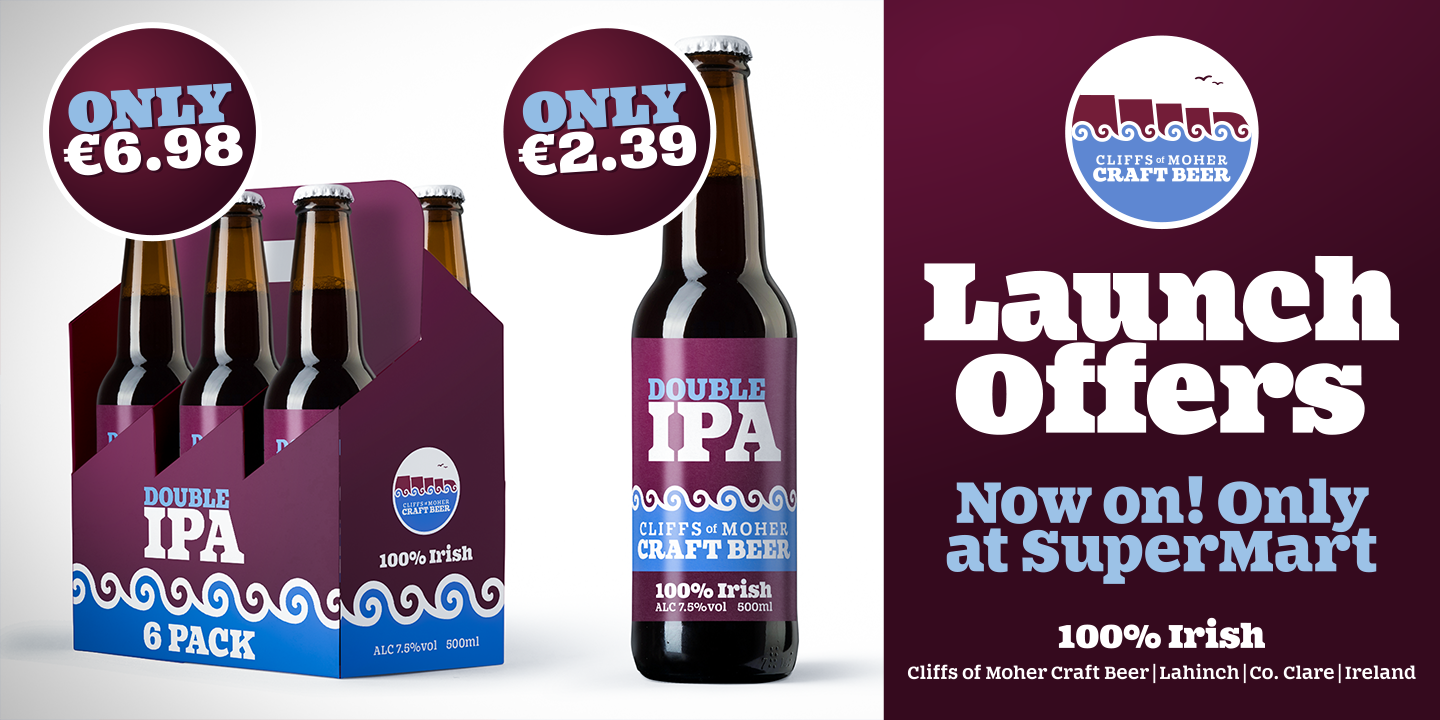
About the Slabber Font
About Slabber Font Family Slabber is a big ol’ chunky serif that’s specifically designed for display purposes – headlines, logotype, branding, titles, packaging, signage, etc, Its characteristics include heavy bracketed serifs with a strong 19th century wood type influence, while a very large x-height combined with a small cap height creates an awkward tension that delivers a strong, stylish, contemporary typeface
Slabber is enhanced by 22 alternates that will allow you to add flourishes to your typography, All Latin European languages are covered in this 6-weight typeface, Key features: 6 Weights 22 AlternatesEuropean Language Support (Latin)500 glyphs per font